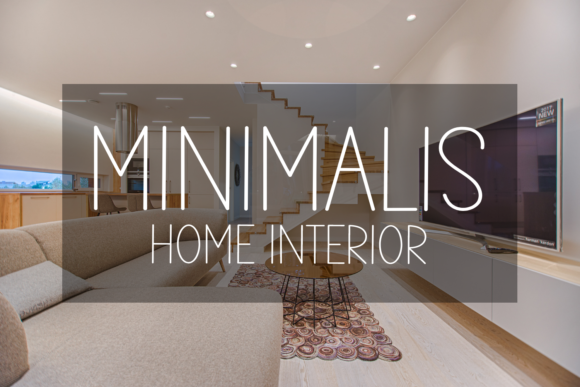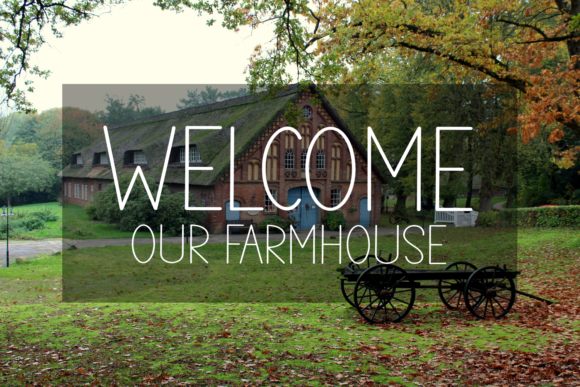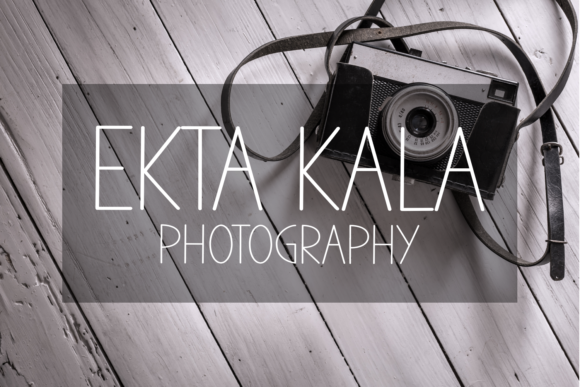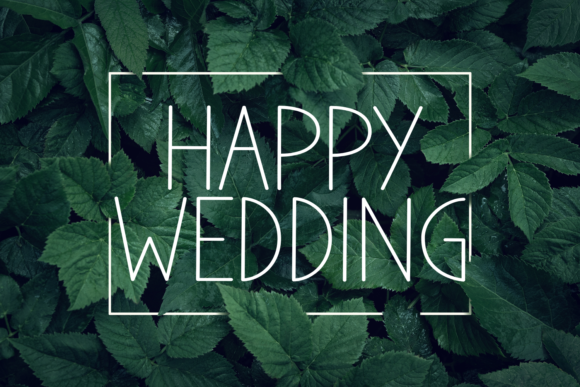
Introducing Greenhouse Font: The Ultimate Sans Serif for Creative Projects
Are you tired of using the same old fonts for your design projects? Look no further than Greenhouse Font, a minimal and neat sans serif font that’s perfect for adding a touch of modernity to your creative ideas. With its clean lines and simple design, Greenhouse Font is versatile enough to be matched with an incredibly large set of projects, making it a must-have for designers and crafters alike.
The Characteristics of Greenhouse Font
Greenhouse Font is a sans serif font, which means it doesn’t have the small lines or flourishes that are commonly found at the ends of letters in serif fonts. This gives it a clean and minimalist look that’s perfect for designs where you want the text to be the focus. The font is also highly legible, making it easy to read in a variety of sizes and contexts.
One of the standout features of Greenhouse Font is its simplicity. The font has a very modern feel, with rounded edges and a consistent line width. This makes it perfect for designs where you want to convey a sense of freshness and approachability. Whether you’re designing a logo, a website, or a brochure, Greenhouse Font is a great choice.
The Benefits of Using Greenhouse Font
So why should you choose Greenhouse Font for your next design project? Here are just a few benefits of using this versatile font:
- Versatility: Greenhouse Font can be used for a wide range of projects, from logos and branding to websites and print materials. Its clean design makes it easy to pair with other fonts and design elements.
- Legibility: The font is highly legible, even in small sizes. This makes it perfect for designs where you need to convey a lot of information, such as in a brochure or on a website.
- Modernity: Greenhouse Font has a very modern feel, making it perfect for designs where you want to convey a sense of freshness and approachability.
How to Use Greenhouse Font in Your Designs
Greenhouse Font is easy to use in a variety of design contexts. Here are a few ideas for how you can incorporate it into your next project:
Logo design: Use Greenhouse Font to create a modern and minimalist logo that’s perfect for a startup or small business.
Website design: Greenhouse Font is a great choice for website design, particularly for websites that need to convey a sense of freshness and approachability.
Print materials: Use Greenhouse Font in brochures, flyers, and other print materials to add a touch of modernity to your designs.
Social media graphics: Greenhouse Font is perfect for social media graphics, such as Facebook posts and Instagram stories.
Tips for Pairing Greenhouse Font with Other Design Elements
One of the benefits of using Greenhouse Font is that it’s easy to pair with other design elements. Here are a few tips for pairing it with other fonts and design elements:
- Pair with a serif font: Pairing Greenhouse Font with a serif font can create a nice contrast and add visual interest to your design.
- Use with bold colors: Greenhouse Font looks great with bold colors, particularly bright and pastel shades.
- Add texture: Adding texture to your design can add depth and interest. Try pairing Greenhouse Font with a textured background or image.
Greenhouse Font is a versatile and modern sans serif font that’s perfect for a wide range of design projects. Its clean lines and simple design make it easy to pair with other fonts and design elements, and its high legibility makes it perfect for designs where you need to convey a lot of information. Whether you’re a designer or crafter, Greenhouse Font is a great choice for adding a touch of modernity to your creative ideas.